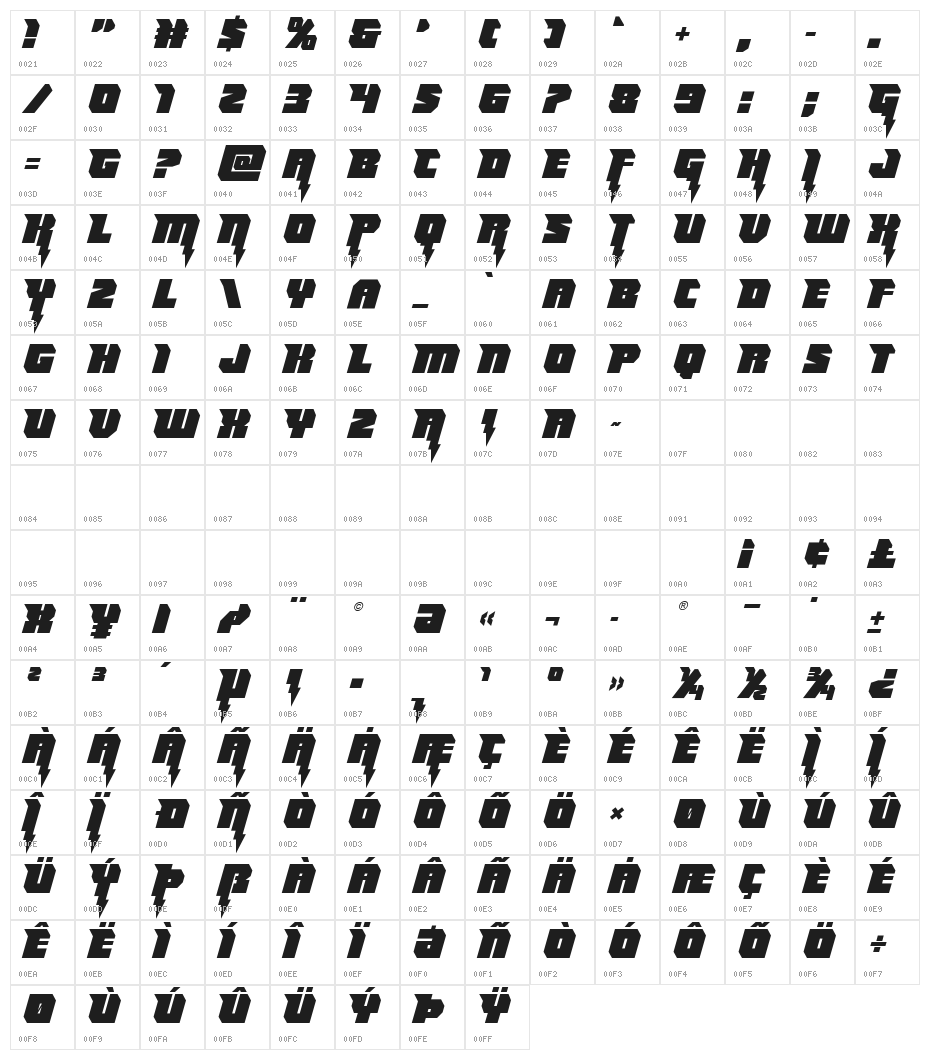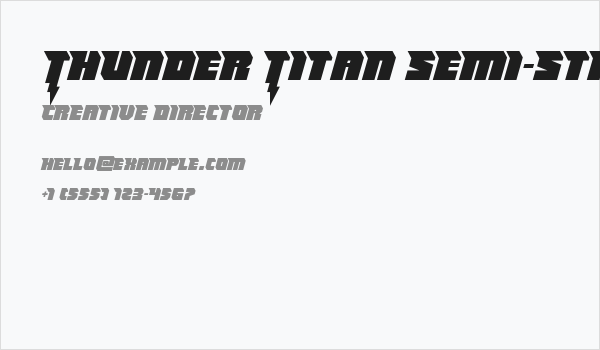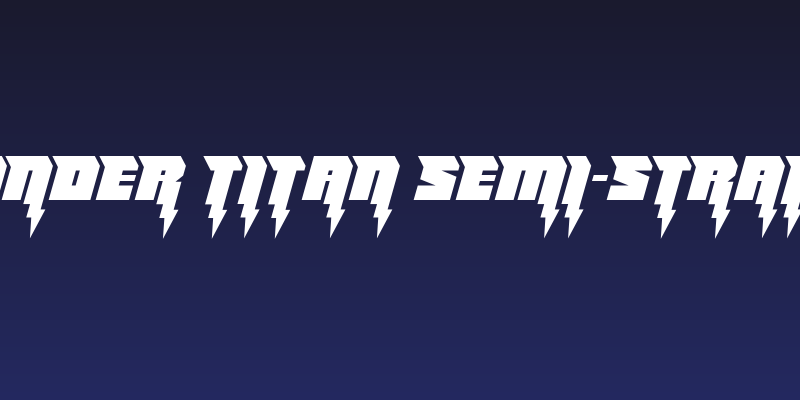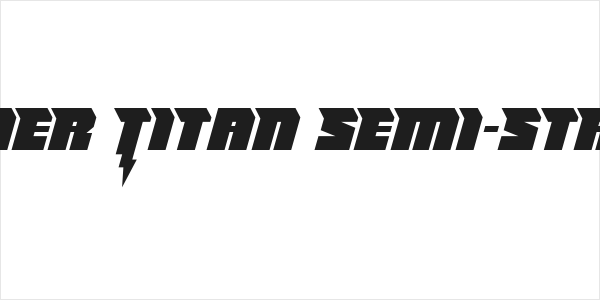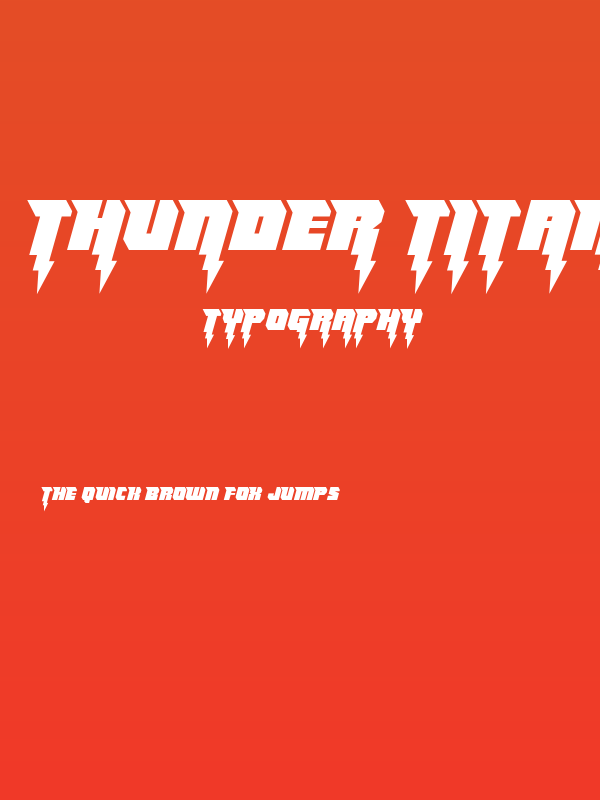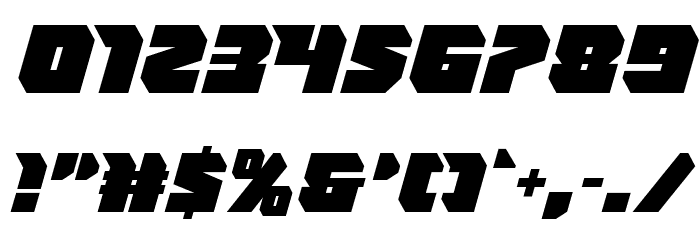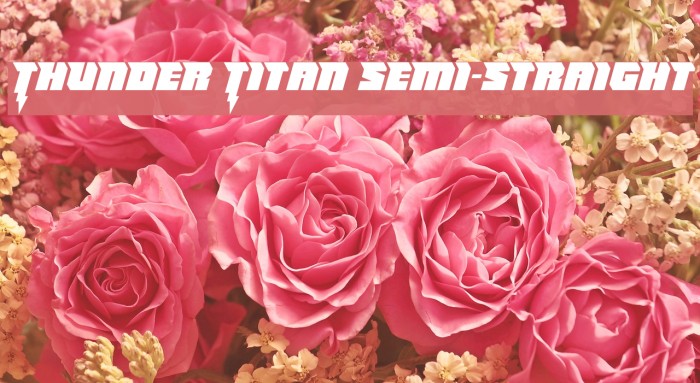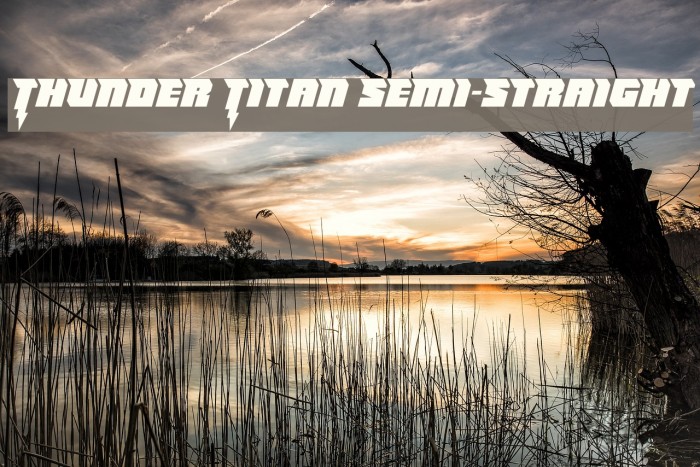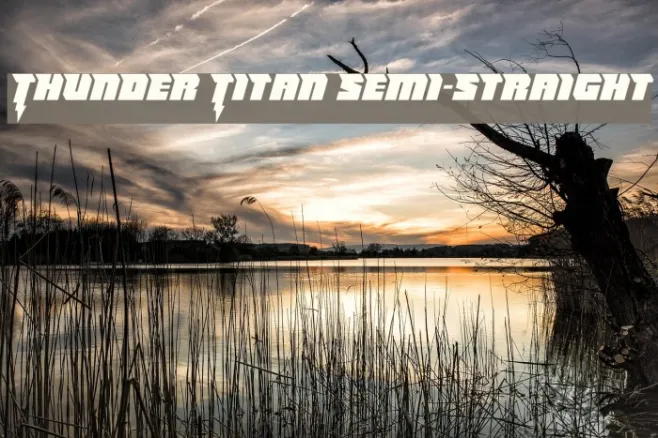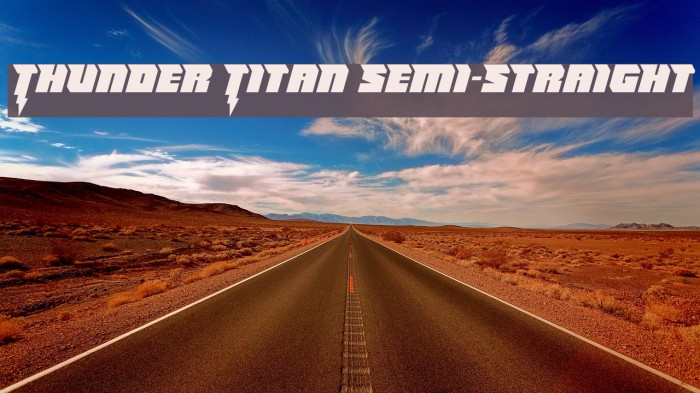
Thunder Titan Semi-Straight Font
Thunder Titan Semi-Straight Description
This font features a bold and striking design with sharp, angular edges and a dynamic, lightning bolt motif integrated into each character. The uppercase letters are particularly impactful, with a strong geometric structure that conveys power and energy. The lowercase letters maintain the same angular style, ensuring consistency across the typeface. Numbers and special characters are designed with the same boldness, making them stand out in any context. The overall appearance is modern and edgy, suitable for projects that require a sense of strength and dynamism.
| Proposed Projects | Ideal for sports branding, music album covers, action movie posters, and dynamic logo designs. |